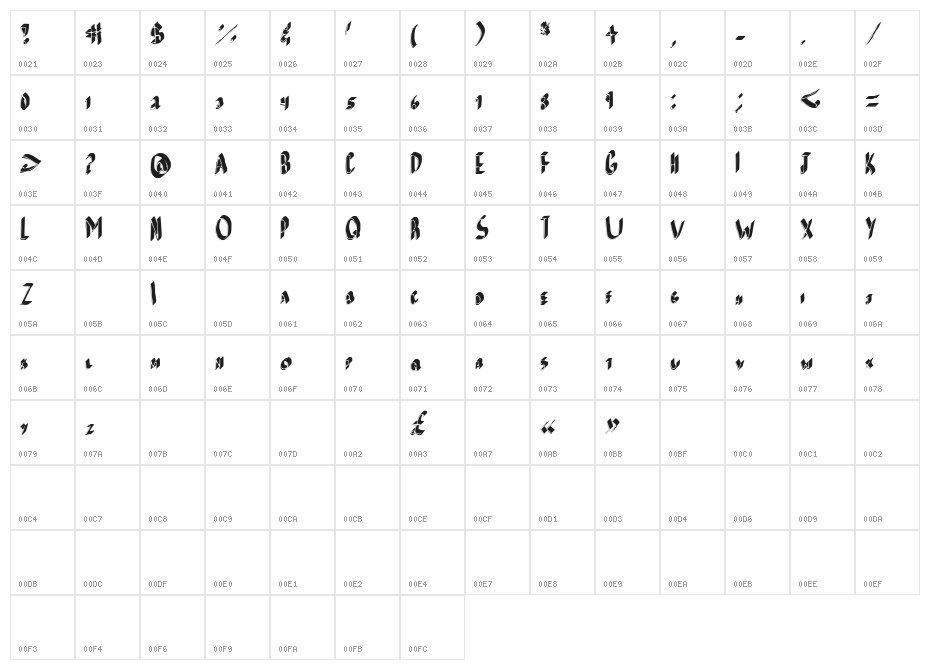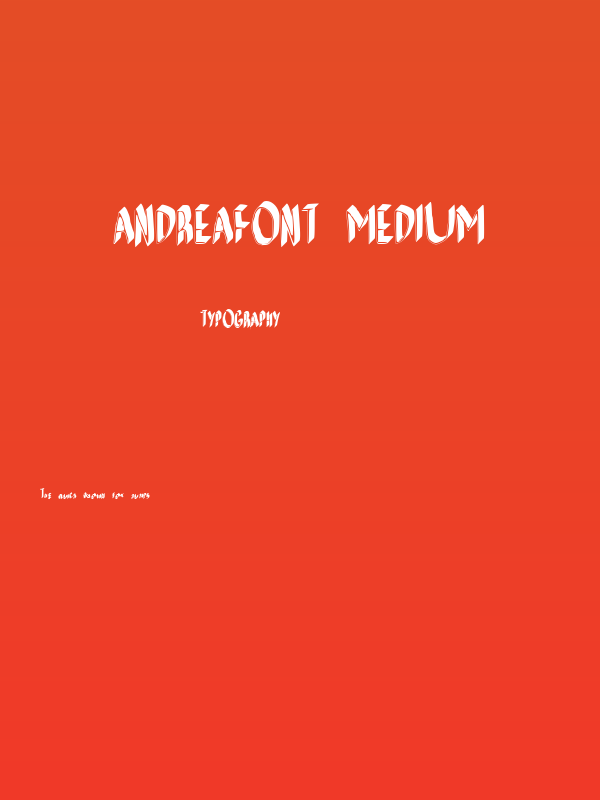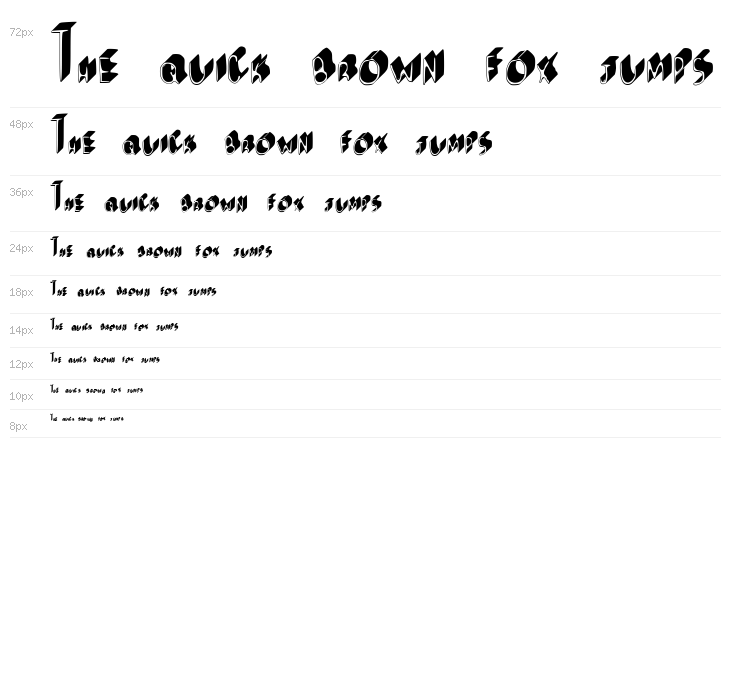
AndreaFont Medium Font
AndreaFont Medium Description
This font exhibits a bold and dynamic style, characterized by its three-dimensional, shadowed effect that gives each character a sense of depth and movement. The uppercase and lowercase letters are designed with sharp, angular edges, creating a striking and modern appearance. The numbers and special characters maintain this bold aesthetic, ensuring consistency across all glyphs. The font's unique style makes it particularly suitable for attention-grabbing designs, where a sense of energy and impact is desired. Its distinct shadowing and angular forms suggest a futuristic or avant-garde theme, making it ideal for projects that aim to stand out.
Proposed ProjectsIdeal for posters, logos, video game graphics, and any design requiring a bold, modern impact.